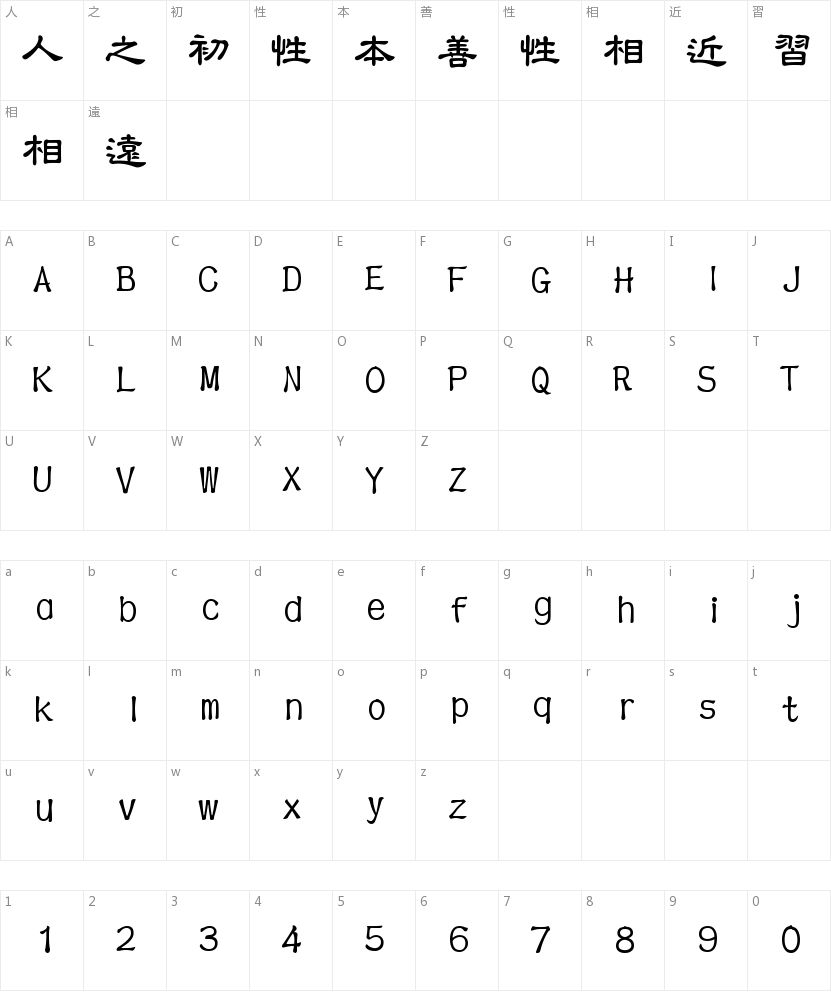
Universal crude
Universal bold official font is a simple, easy-to-read, high-readability font, mainly used in the text design of newspapers, books, advertisements and other printed materials. It is characterized by wide and thick letter strokes, simple structure, easy to read, and high readability. Its font type has various variants such as italic, bold, regular, etc., to meet different needs.
Universal crude is a very good handwriting art font, with a good visual sense, suitable for cultural propaganda design, commercial brand advertising and product packaging design and personalized text typesetting and other more scenes.